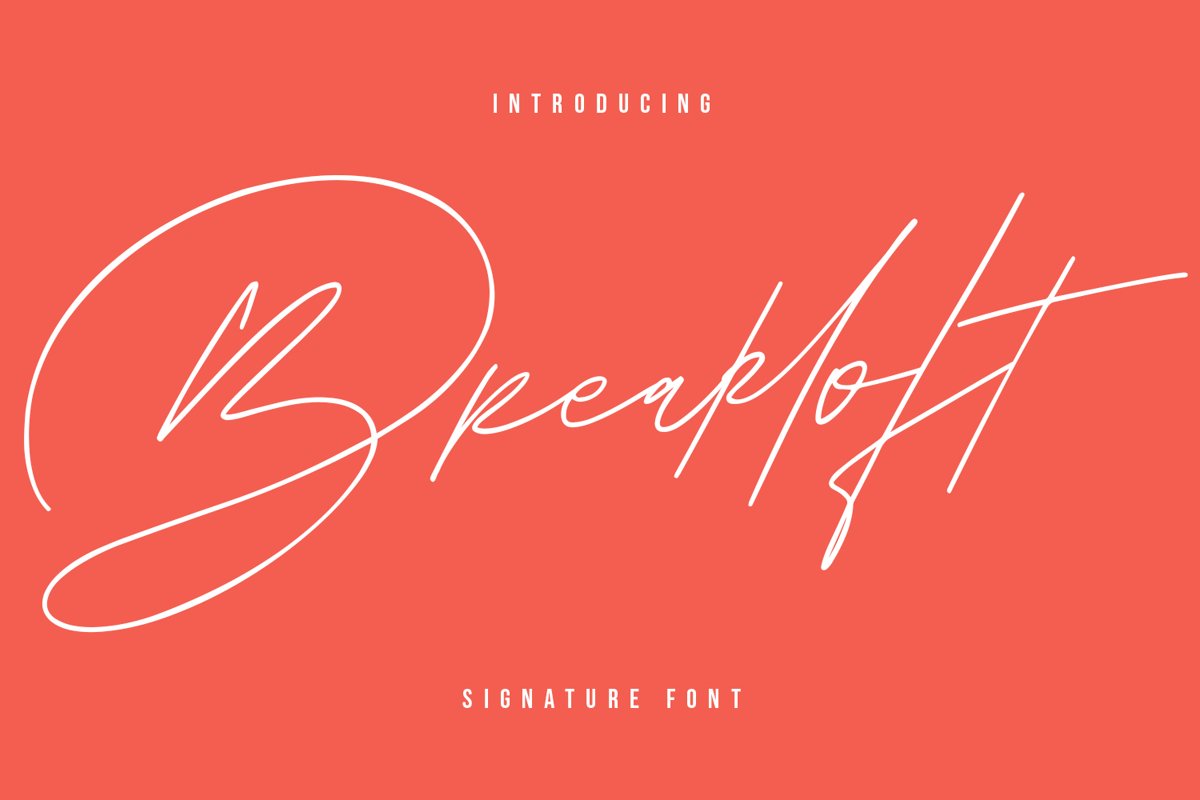
Give your designs an authentic handcrafted feel. "Breakloft Signature" is perfectly suited to signature, stationery, logo, typography quotes, magazine or book cover, website header, clothing, branding, packaging design and more. Included Stylistic Alternates and Ligatures.Font Available: